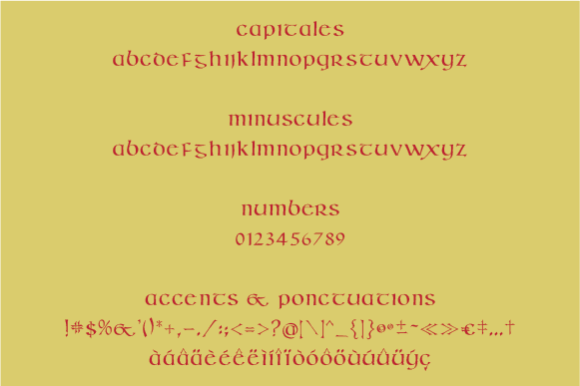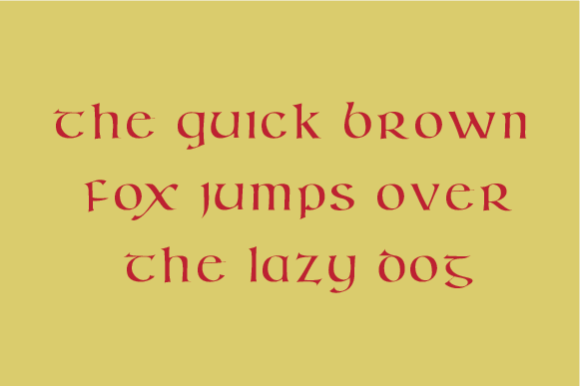
Introduction to Kells Book Font
As a designer, there’s nothing quite like the thrill of stumbling upon a new font that sparks inspiration. It’s like discovering a hidden treasure trove of creative possibilities, just waiting to be unleashed. For me, that moment came when I laid eyes on the stunning Kells Book Font, a majestic serif font born from the intricate Gothic script of the Book of Kells.
The Kells Book Font is more than just a pretty face – it’s a design resource that offers unparalleled versatility and sophistication. Its unique blend of traditional and modern elements makes it an ideal choice for designers seeking a high-quality font that can elevate their creative projects to new heights.
Key Features of Kells Book Font
- Unique, elegant design perfect for creative projects, such as book covers, posters, and invitations.
- High-quality font with crisp, clear characters, ideal for print and digital applications.
- Characteristics include a traditional, hand-written feel and a subtle texture, adding a touch of authenticity to any design.
Honest Review: Kells Book Font
I recently came across the Kells Book Font, and I was excited to dive in and see what it had to offer. As a designer, I’m always on the lookout for high-quality design resources that can elevate my creative projects. The Kells Book Font is a beautiful, elegant script font that’s perfect for adding a touch of sophistication to your designs.
Here are some of the things that work well with the Kells Book Font:
- ✨ Beautiful, high-quality design that’s perfect for adding a touch of elegance to your creative projects
- ⚠️ Limited character set, which may not be ideal for longer blocks of text
- ⚠️ Not suitable for use in small font sizes, as it may become difficult to read
Overall, I’m impressed with the Kells Book Font, and I think it’s a valuable addition to any designer’s toolkit. With its beautiful, high-quality design and transparent background, it’s perfect for adding a touch of elegance to your creative projects. Just be aware of the limitations, and use it thoughtfully.
Common Use Cases for Kells Book Font
Kells Book Font is perfect for a variety of design projects, including wedding invitations, business cards, and book covers. The font’s elegant and sophisticated look makes it ideal for formal and creative projects alike.